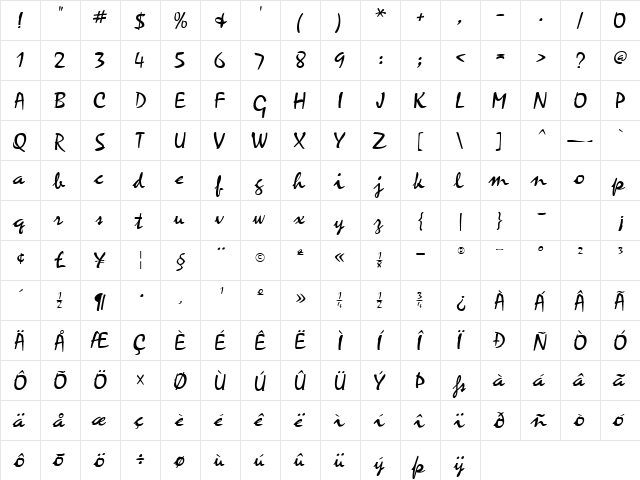
Zepheria Script Regular
Design Context for Zepheria Script Typeface
Zepheria Script brings a calligraphic fluidity to the page — its connecting strokes and expressive curves give it an unmistakably human quality.
Font Pairing: Combine Zepheria Script with a simple geometric sans for maximum contrast — the tension between flowing curves and clean structure is a classic typographic pairing.
Pro Tip: Pair Zepheria Script with a clean sans-serif for supporting text. The contrast between fluid script and geometric structure creates an elegant typographic hierarchy.